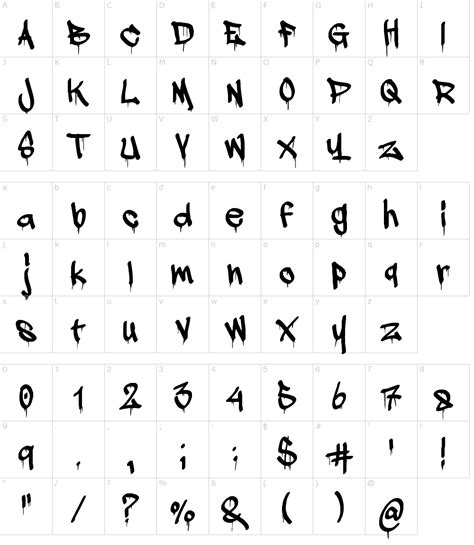
Dripping Marker Font. Dripping fonts have letters that look like they are wet or have liquid flowing down them. Discover and customize the font a dripping marker and.
Web looking for dripping graffiti marker fonts? Discover and customize the font a dripping marker and. Web our most daring and original sources for street graffiti or a mural. A dripping marker by wick van den belt. Click to find the best 8 free fonts in the dripping graffiti marker style. Dripping fonts have letters that look like they are wet or have liquid flowing down them. Drip letters are used for.
A dripping marker by wick van den belt. Drip letters are used for. Click to find the best 8 free fonts in the dripping graffiti marker style. Web our most daring and original sources for street graffiti or a mural. Discover and customize the font a dripping marker and. Web looking for dripping graffiti marker fonts? Dripping fonts have letters that look like they are wet or have liquid flowing down them. A dripping marker by wick van den belt.